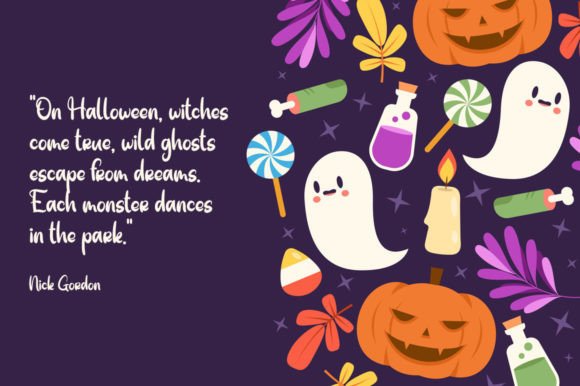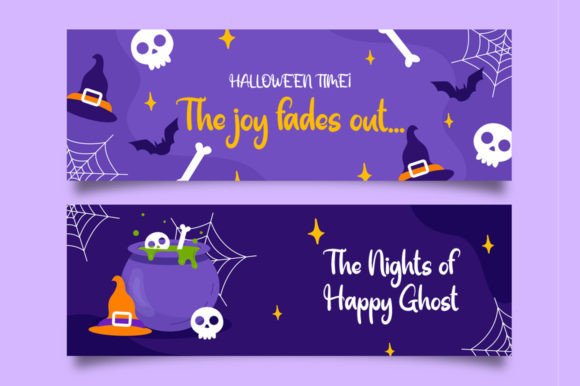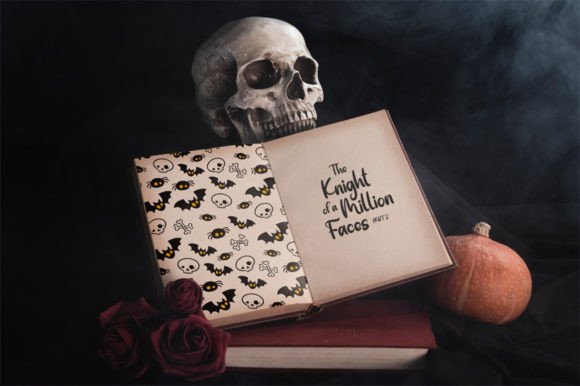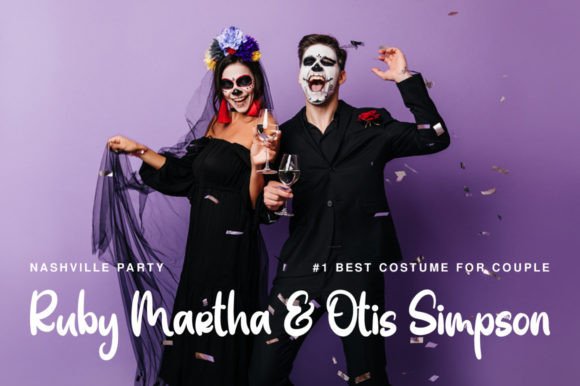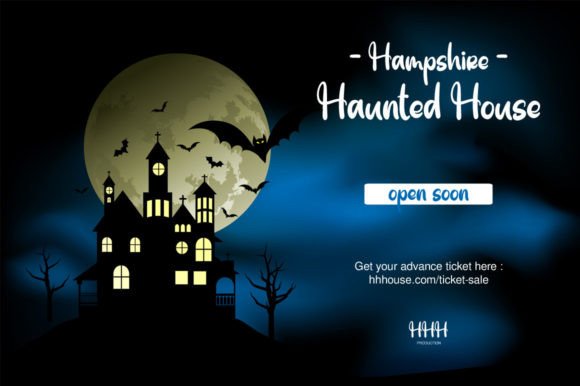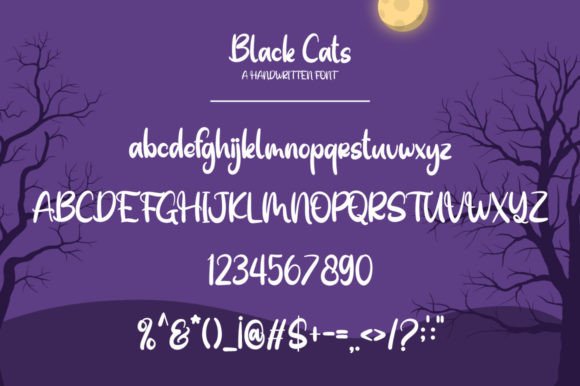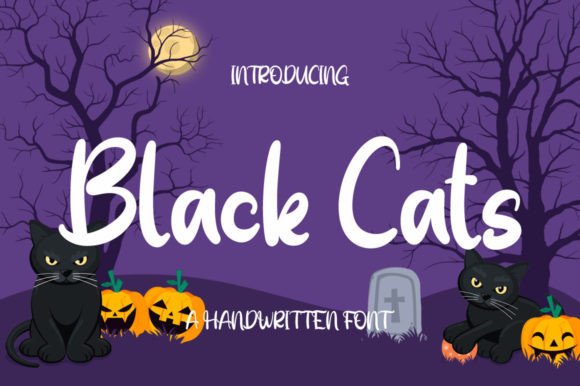
The Purrfect Font: A Deep Dive into Black Cats Font
I’ll never forget the time I was working on a project for a client who wanted a custom chalkboard-style design. I spent hours scouring the internet for the perfect font, but nothing seemed quite right. That was until I stumbled upon Black Cats Font. Its delicate, handwritten letters immediately caught my eye, and I knew I had found the one. In this article, I’ll share my experience with Black Cats Font, its features, and how to make the most of it in your designs.
So, what makes Black Cats Font so special? Here are a few things I love:
- ✨ Delicate and simple lettering: Black Cats Font has a charming, handwritten feel that’s perfect for creating chalkboard-style designs.
- ✅ Authentic look: The font’s authentic look adds a personal and realistic feel to your designs, making them perfect for teaching materials, quotes, and more.
- 💡 Versatility: Black Cats Font can be used for a variety of design projects, from digital to print.
Of course, no font is perfect, and Black Cats Font has a few small quirks:
- 🤔 Limited character set: While Black Cats Font has a range of characters, it’s not a full-featured font with extensive language support.
- ⚠️ Not suitable for body text: Due to its delicate nature, Black Cats Font is best used for headlines, titles, and short paragraphs.
The Story Behind Black Cats Font
Black Cats Font was designed with the intention of creating a font that would evoke a sense of nostalgia and warmth. The designer wanted to create a font that would be perfect for creating chalkboard-style designs, and after months of work, Black Cats Font was born. The font’s delicate lettering and authentic look make it perfect for a variety of design projects.
| Font Name | Black Cats Font |
| Author | Graphix Line Studio |
| What is Black Cats Font best used for? | Black Cats Font is best used for designs that require a delicate, handwritten look, such as chalkboard-style designs, teaching materials, and quotes. |
| Is Black Cats Font suitable for body text? | No, Black Cats Font is not suitable for body text due to its delicate nature. It’s best used for headlines, titles, and short paragraphs. |
| Is Black Cats Font available in multiple languages? | No, Black Cats Font has a limited character set and is not available in multiple languages. |